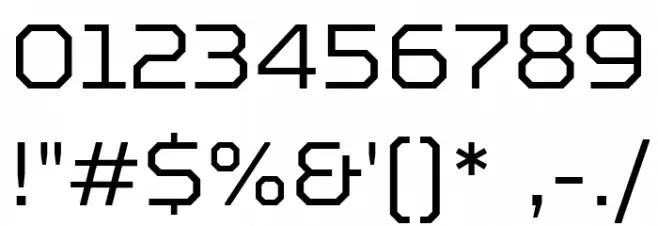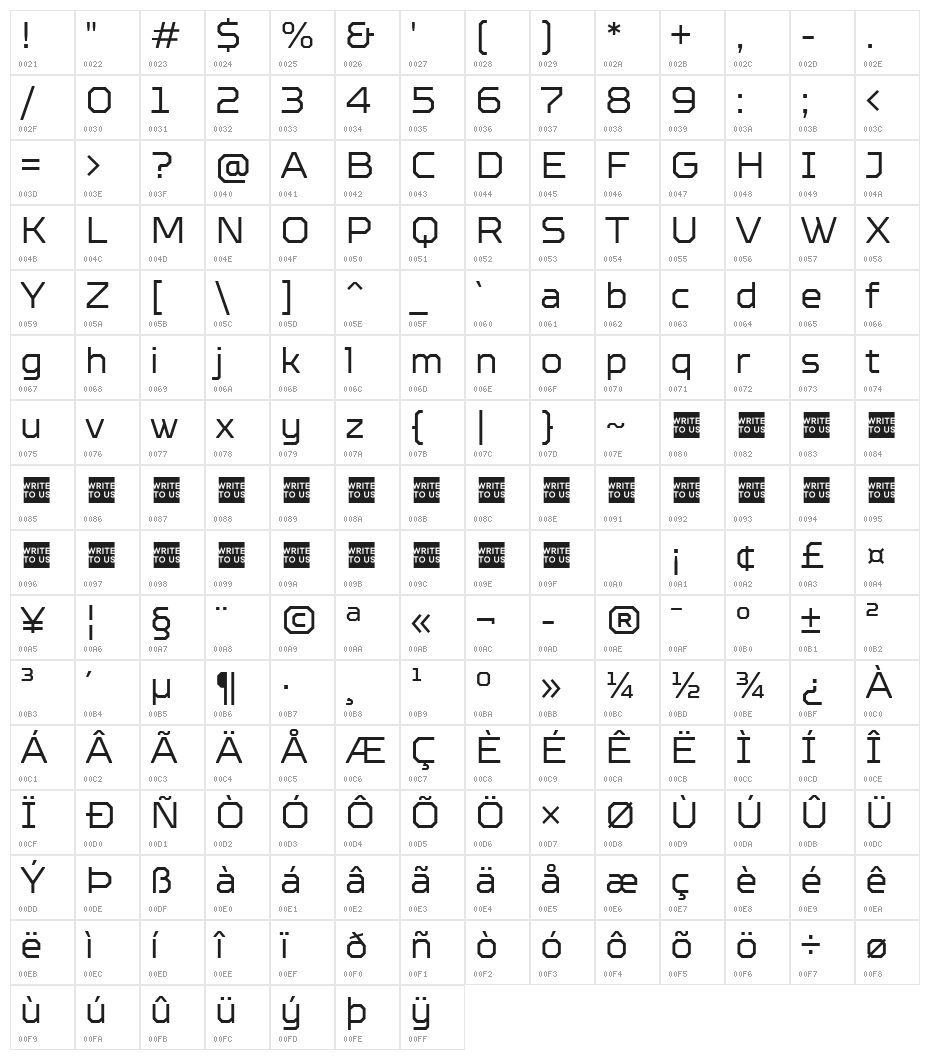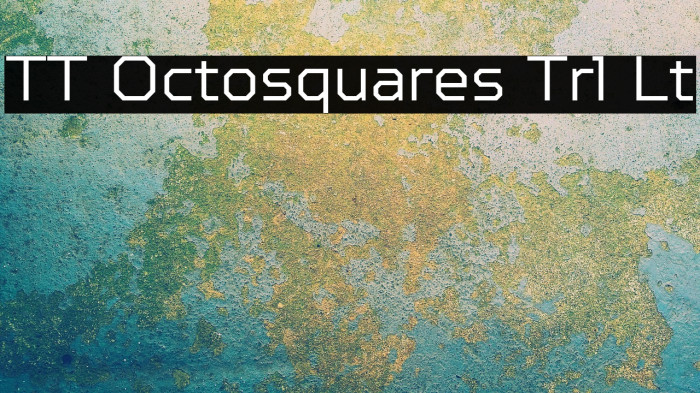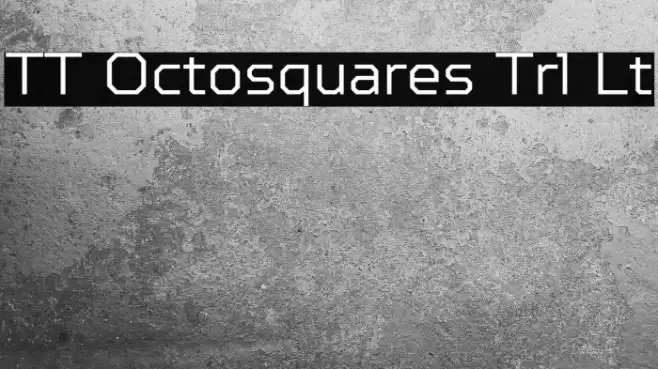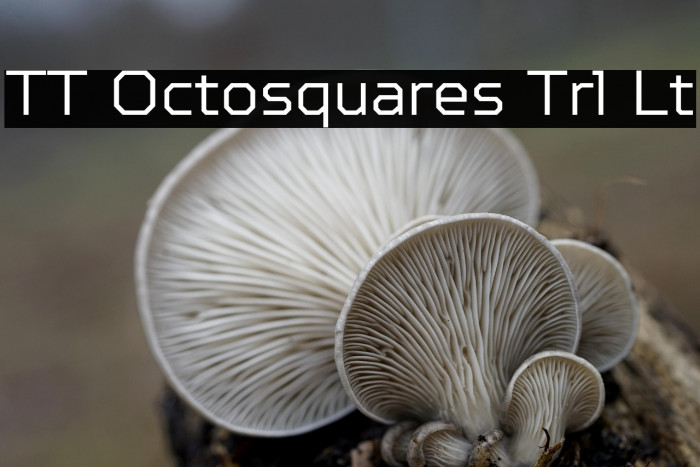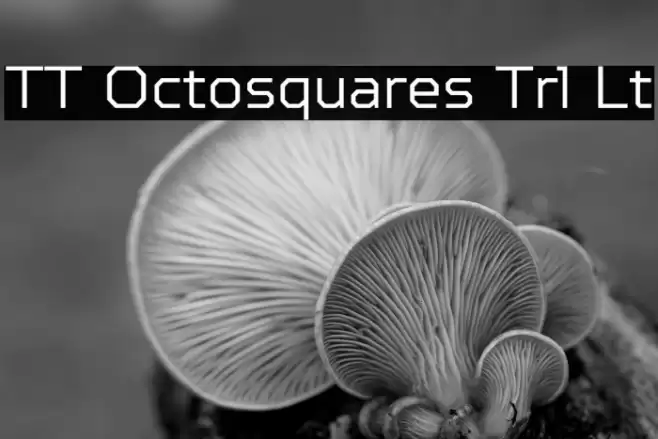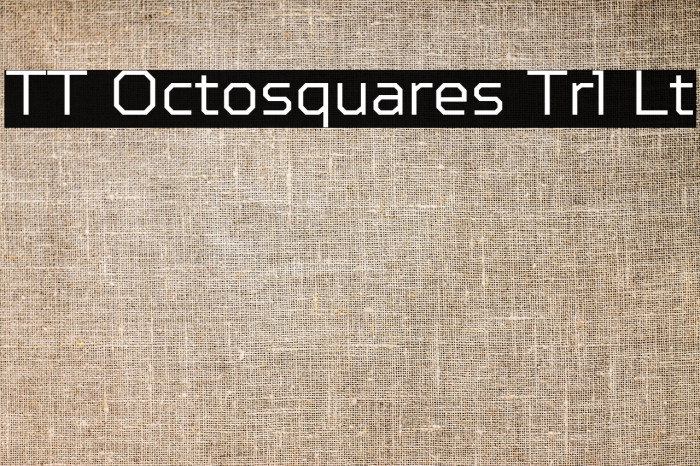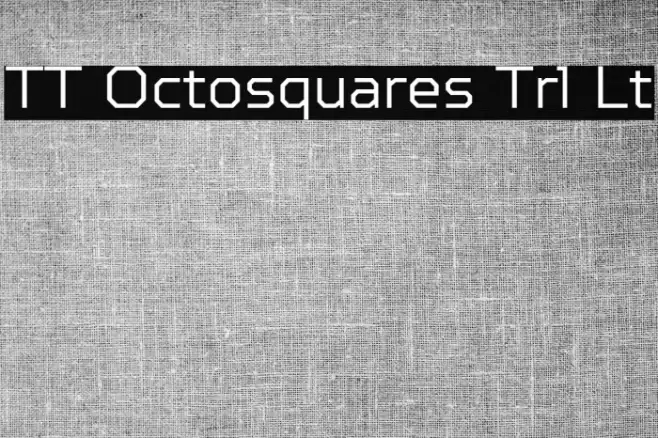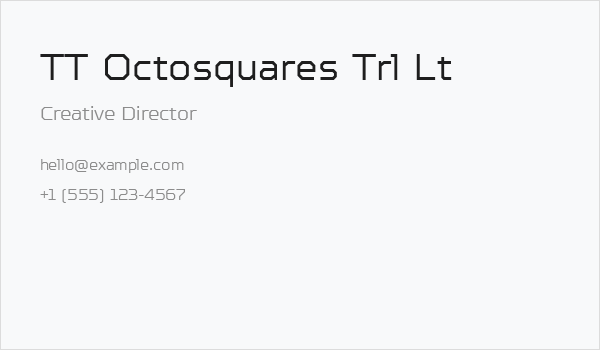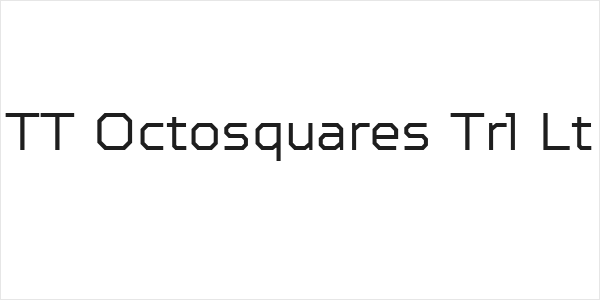
TT Octosquares Trl Lt Font
TT Octosquares Trl Lt Description
This font exhibits a modern, geometric style characterized by its clean lines and angular shapes. The characters are constructed with a consistent stroke width, giving it a uniform appearance. The design is minimalistic, with a focus on clarity and readability. The uppercase and lowercase letters maintain a cohesive look, while the numerals and special characters complement the overall aesthetic. The font's structure is slightly condensed, which enhances its contemporary feel. Its simplicity and precision make it suitable for a variety of design applications.
| Use Case | Headlines, Logos, Digital interfaces |
| Proposed Projects | Ideal for tech branding, modern web design, and minimalist posters. |